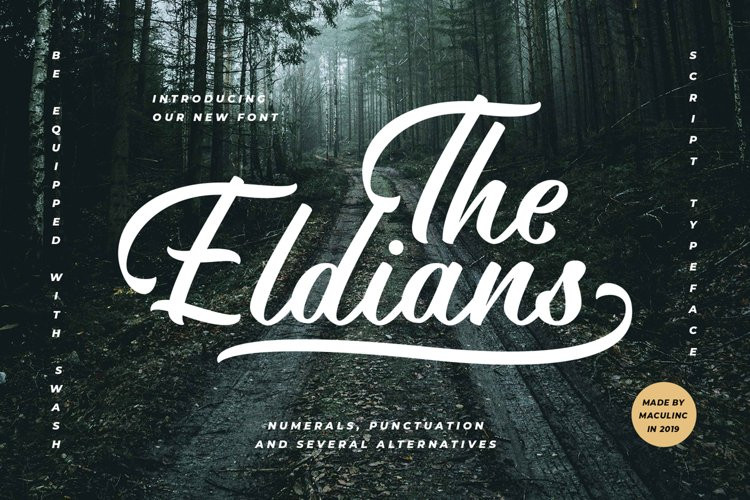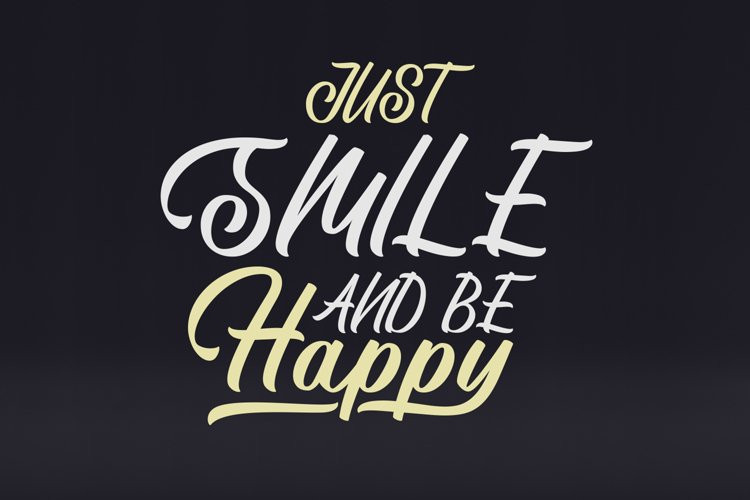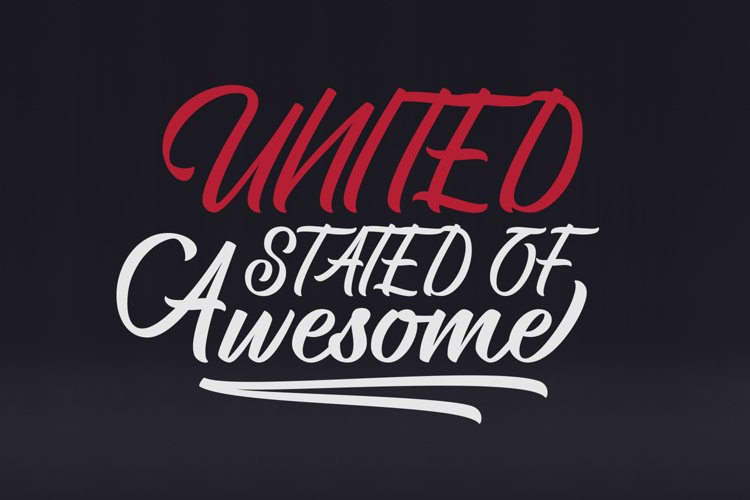
The Eldians Font
The Eldians FontThe Eldians is a script font inspired by film and urban life. This font is great for your next creative project such as Logotype, printed quotes, invitations, cards, product packaging, headers, Letterhead, Posters, Clothing Design, Labels, etc.
The Eldians are available with so many variations on each character in Opentype including Uppercase, Lowercase, Numbers & Punctuation, Style, Ligature, and Titling to make it look more natural than standard fonts. You will also find additional swash added to give your text a finishing touch.